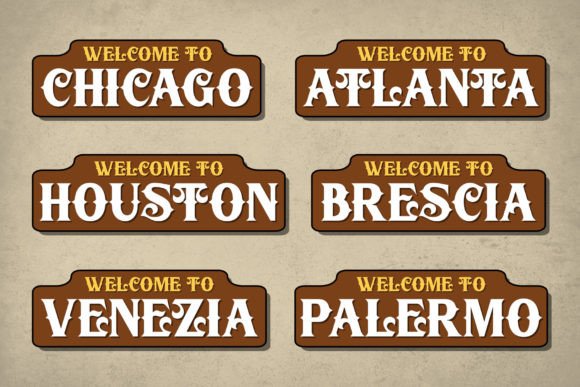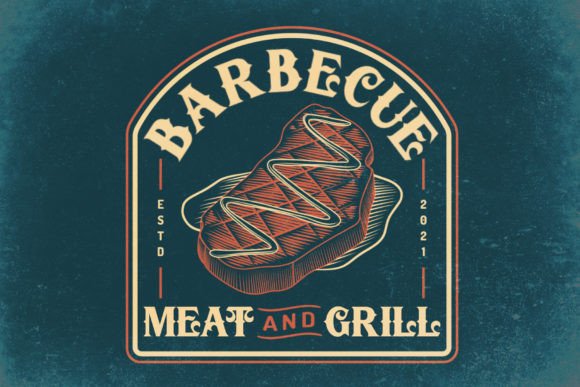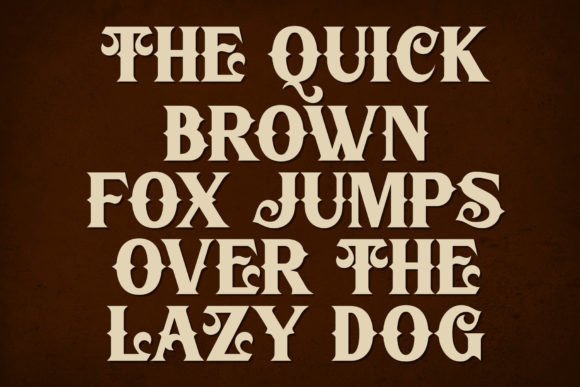
Introduction to Saltru Western Font
Embrace the rugged spirit of the Wild West with the Saltru Western Font.
This typeface is a tribute to the frontier, echoing the boldness and adventure of cowboy culture Ideal for posters, logos, and branding, it infuses your designs with the essence of the American West.
Key Features of Saltru Western Font
Why Choose Saltru Western Font?